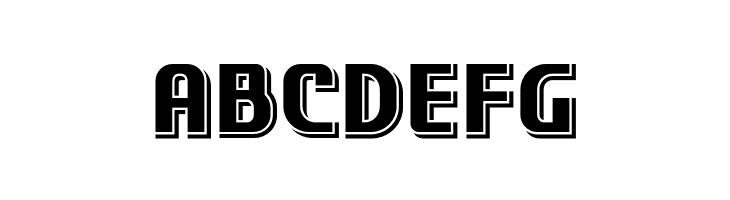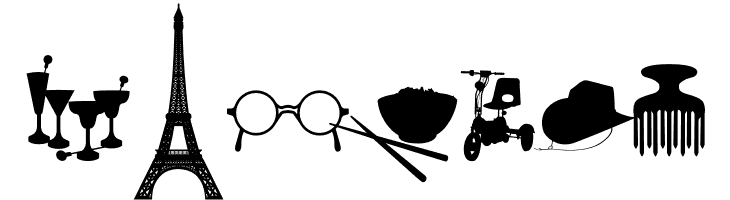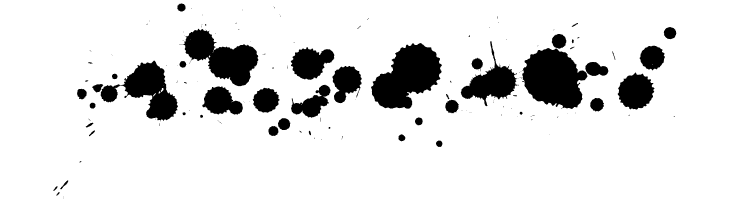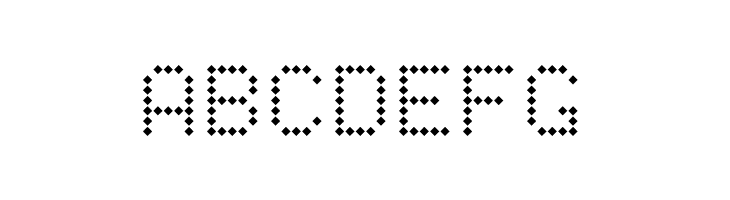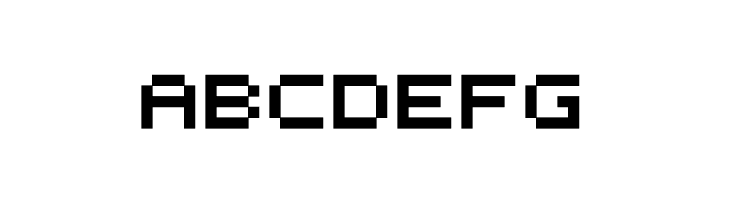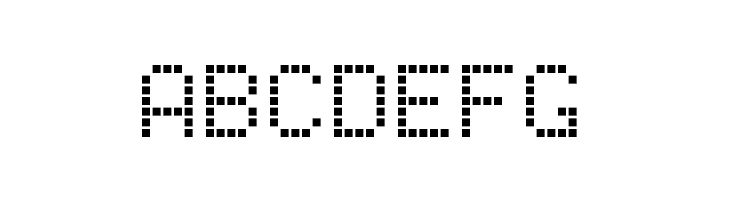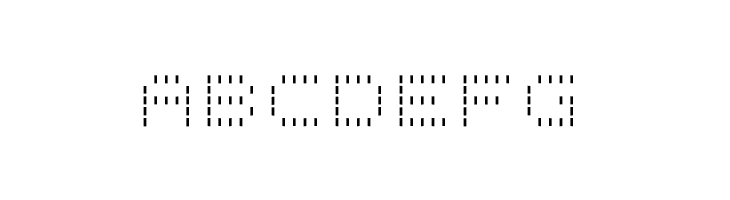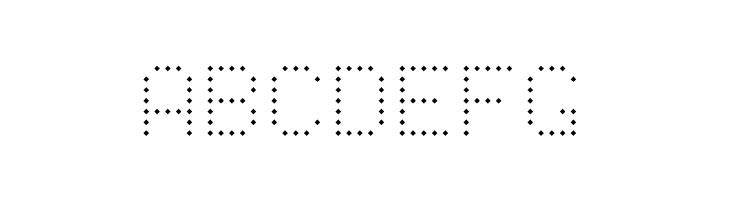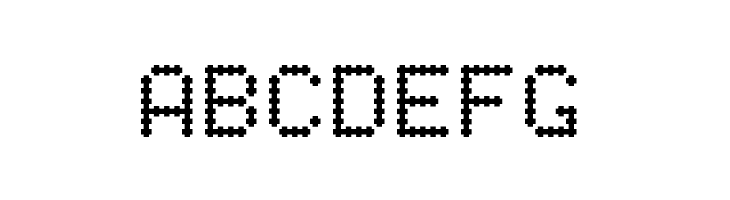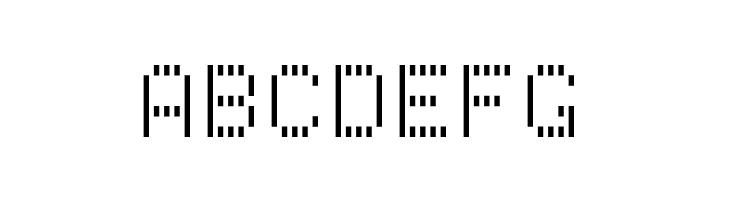
Bold, shadowed font with a retro, three-dimensional look.
A bold, geometric font with a modern and assertive design.
A bold, expressive brush-style font with dynamic strokes and a hand-painted appearance.
A bold, brush-style font with dynamic, artistic strokes.
A pictogram-based decorative font with assorted object silhouettes.
An artistic font with ink splatter designs for a bold, expressive look.
A modern, dotted font with a digital, pixelated aesthetic.
A pixelated font composed of diamond-shaped dots, offering a digital and modern look.
A modern, dot-based font with a retro digital display aesthetic.
A dot matrix style font with a digital, geometric design.
A bold, diamond-dotted font with a pixelated, geometric style.
A modern, dotted font with a digital, tech-inspired style.
A dot matrix style font with uniform spacing and a modern, tech-inspired look.
A modern, dotted font with a unicase effect and geometric design.
A light, dotted font with characters formed by diamond-shaped dots, offering a modern and decorative style.
A modern, dot-based font with a geometric, pixelated style.
A dotted, geometric font with a digital, pixelated style.
A pixelated font with square dots, offering a modern, digital aesthetic.
A bold, geometric font made of diamond-shaped dots, offering a modern and artistic style.
A dot-based, pixelated font with a retro digital style.
A modern, dotted font with a playful and bold appearance.
A decorative font with characters formed by diamond-shaped dots, offering a pixelated look.
A modern, dotted font with a playful and minimalist design.
A modern, dotted font with a geometric and playful design.
A dotted, pixelated font with a geometric and digital appearance.
A bold, dot matrix font with a modern, digital aesthetic.
A modern, dotted font with a playful and digital aesthetic.
A modern, dotted font with a geometric and playful style.
A bold, dot matrix font with a digital, retro aesthetic.
( Fonts by backpacker.gr )
A dot matrix style font with a retro digital display aesthetic.
( Fonts by backpacker.gr )
A bold, dotted font with a modern, pixelated style.
( Fonts by backpacker.gr )
A modern, dot-based font with a digital, pixelated style.
( Fonts by backpacker.gr )
A dotted font with a digital, retro aesthetic.